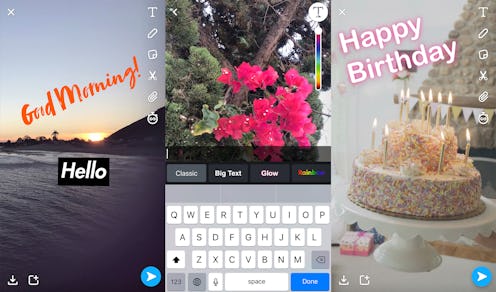
Here's What Every Single New Snapchat Font Looks Like
They say a picture is worth a thousand words, which is pretty much the basis for all of Snapchat's success and popularity. After all, why send a plain old text message when you can keep your friends and family updated in real time on what you're actually seeing and hearing? Obviously, the visual element makes a big impact, and the fact that Snapchat has also offered the ability to include captions on top of photos and videos has made that impact all the stronger. In the latest version of the app, they've gone a step further by offering a variety of fonts and text styles so that the words you are using in your Snaps can pack an even bigger punch. What are the new Snapchat font and caption styles? I guarantee you're going to want to check them out, even if you're only an occasional Snapchat user.
Glow
No, I'm not talking about the Netflix show — but this cool new font option is at a similar level of awesome. Use the Glow Caption Style for birthday wishes (as you see above), dispatches from a night out, or random thoughts on a day when you just feel really good about yourself. Glow, baby, Glow!
Brush And Italic
The Brush Option is more or less all you could hope for if you were taking a calligraphy marker directly to your phone screen. Personally, I can't think of any situation in which this font wouldn't be appropriate. Italic looks somewhat similar to the text you're already used to in the previous versions of Snapchat — except that it's, well, italic. As this beachy Snap demonstrates, you can actually mix and match multiple Caption Styles for an extra creative and visually satisfying message.
There's more to Caption Styles than just Glow, Brush, and Italic, though. As you'll see when you tap the screen within the Snapchat app and start typing (just as you've done in previous versions of the platform), a full carousel of font options will now materialize so you can take your pick! If you're like me, you'll probably need to test out each one on the message at hand to see which one you like the best.
Personally, I'm really excited to try the Rainbow style. How cool will that look on pictures and videos from your next vacation?
You'll also note that a scale of color options will populate with the font carousel once you start typing on your Snap. Drag the selector up and down and see how much more awesome these new text styles will look when you mix up the colors! Turn Glow text into a blaring green neon or Brush script into a demure black message. Of course, you'll also be able to pinch the text you've written so that it can be smaller or larger on-screen. Basically, you're keeping all of the text customization options that you were used to before... you'll just be able to play with them in even more creative ways. Maybe we really can have it all.
The only downside I can see here is that there's serious potential for wasting time with this update. How long will it take to perfect a Snap now that you can fiddle with the captions to such a degree? I guess only time — and lots of caption-heavy Snapchatting — will tell!